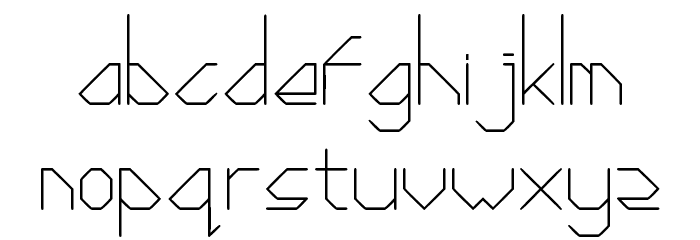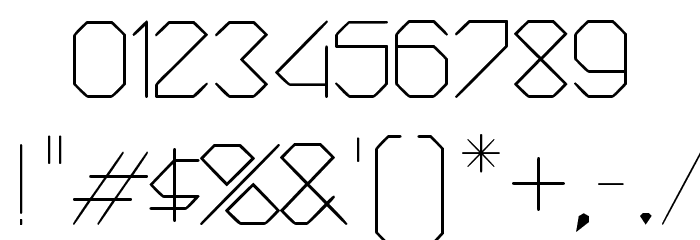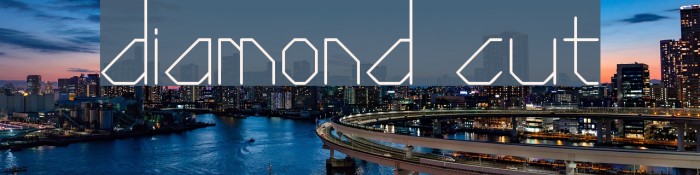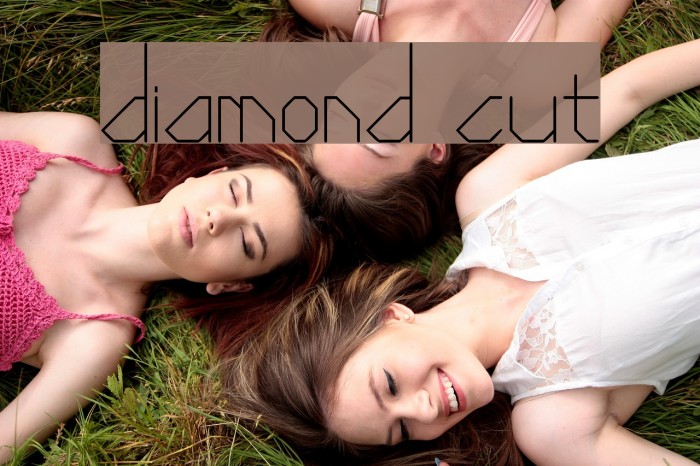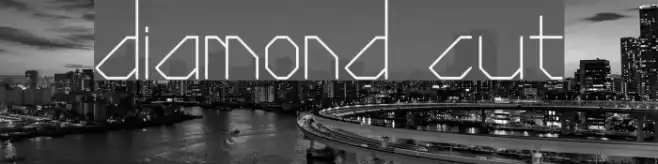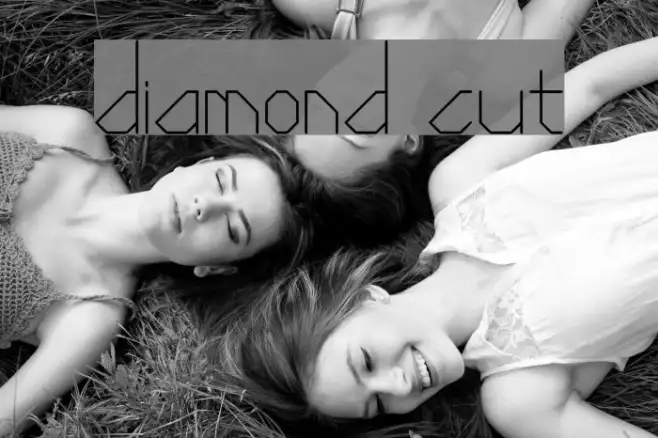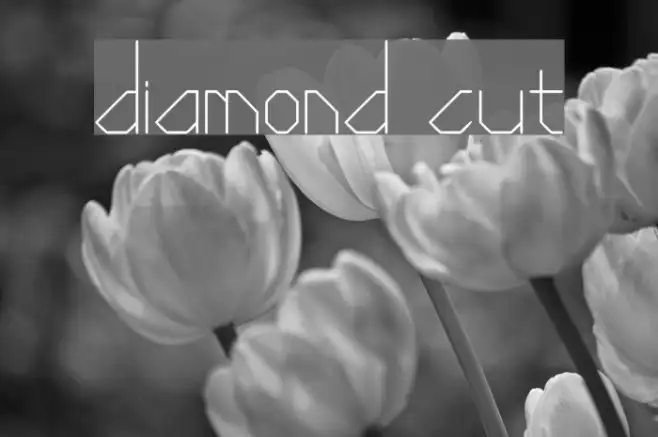
Diamond Cut Font
This font features a geometric and angular design, reminiscent of diamond cuts, with sharp edges and clean lines. Each character is crafted with precision, giving it a futuristic and modern appearance. The uppercase and lowercase letters maintain a consistent style, enhancing readability while adding a unique flair. Numbers and special characters follow the same angular theme, ensuring uniformity across all text elements. The font's distinct style makes it ideal for projects that require a contemporary and edgy look.
A geometric, angular font with a modern, futuristic style.
- Proposed Projects: Ideal for branding, tech-related designs, futuristic themes, and modern advertising campaigns.